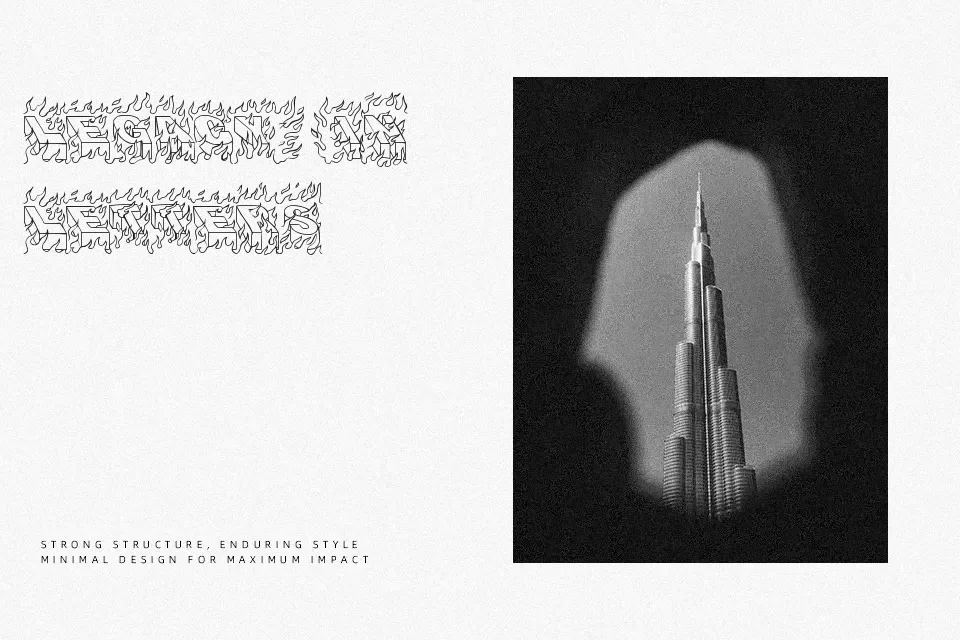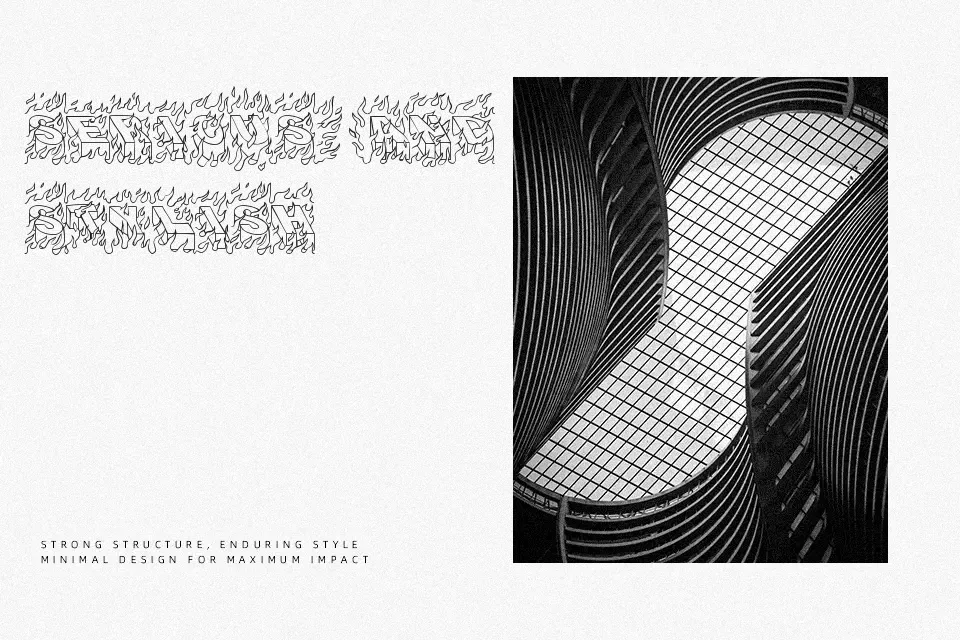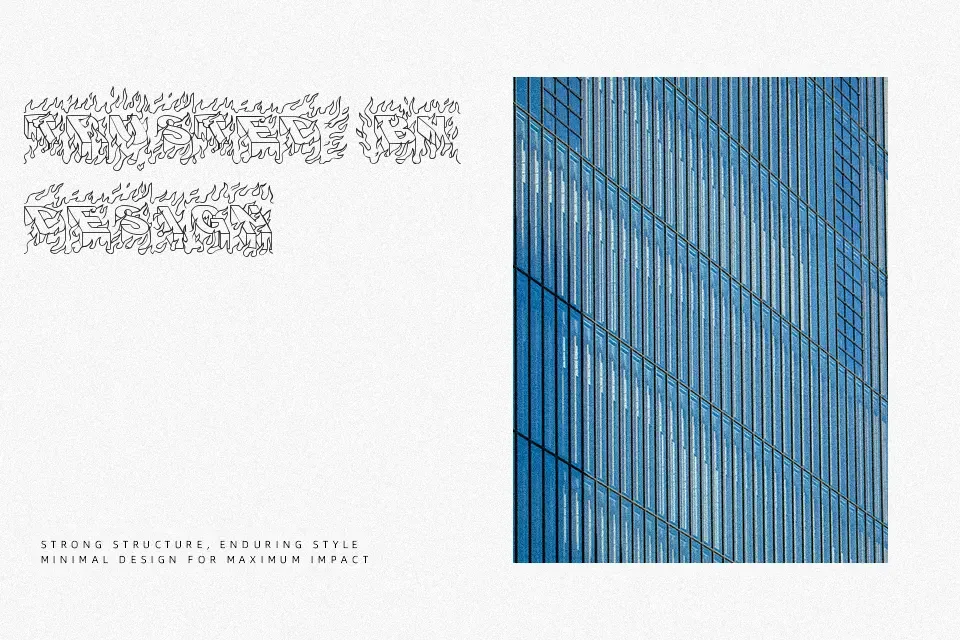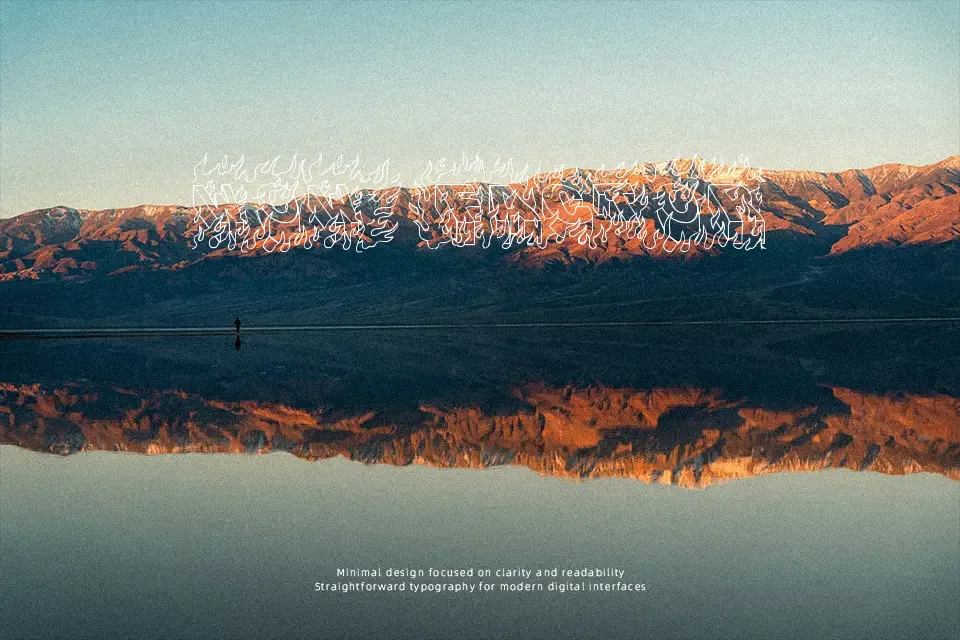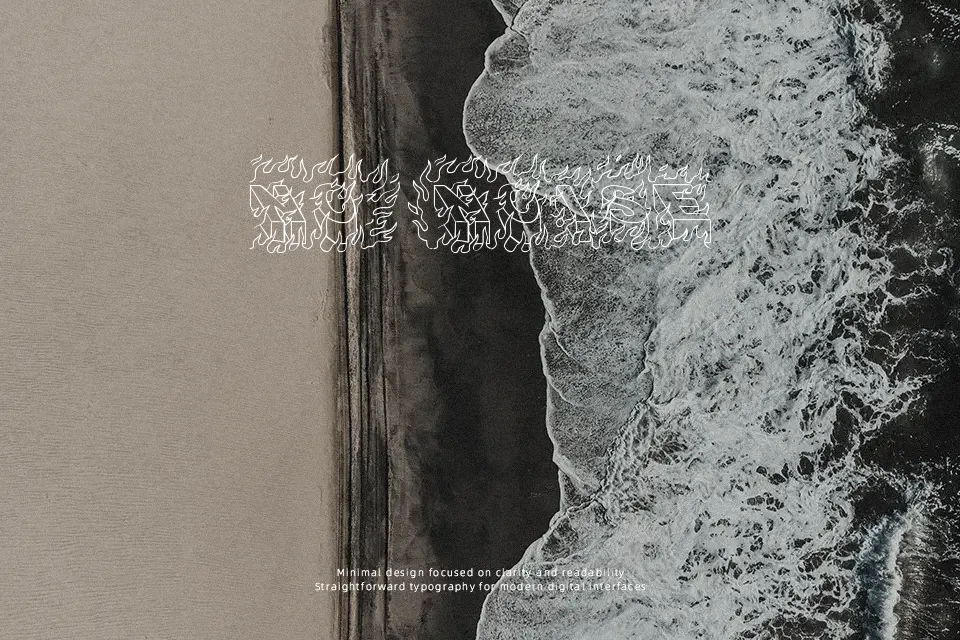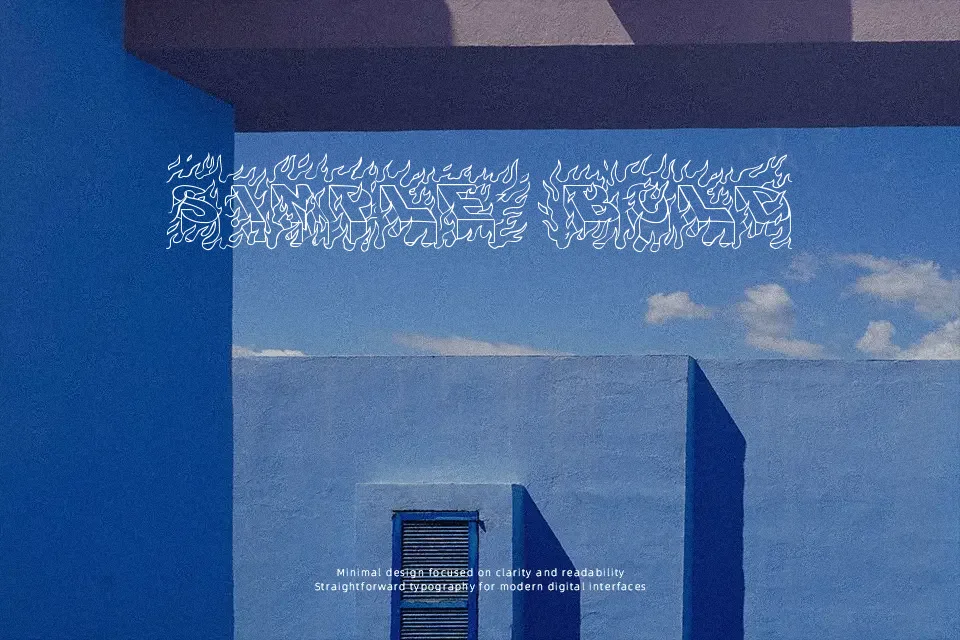
Oakland Hills 1991 Font
Designed by Kirk Shelton
Oakland Hills 1991 Font uses broad, outlined letterforms topped with irregular flame motifs, giving each character a dense decorative silhouette. The uppercase set appears consistent in height, while the interior counters and solid outer contours keep short words recognizable at large sizes. Spacing is relatively open enough to separate the detailed shapes, though the fire treatment makes individual letters visually busy. It works best for a dramatic title, themed poster, or apparel graphic rather than extended copy. The ornament remains most legible in large display settings; at smaller sizes, the flame edges can compete with the letter structure.
Best For: Halloween posters,fire-themed event headlines,apparel graphics,game title screens